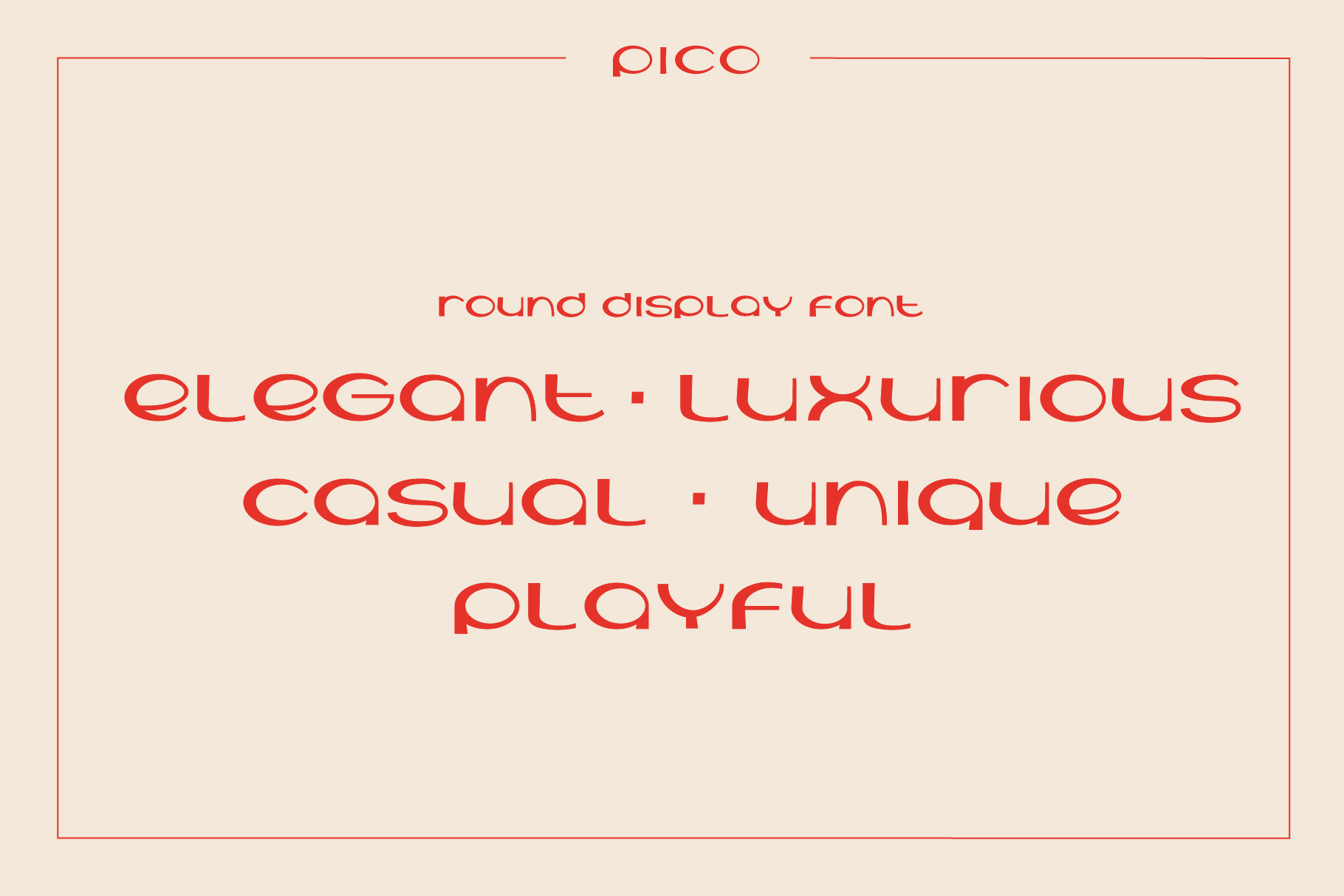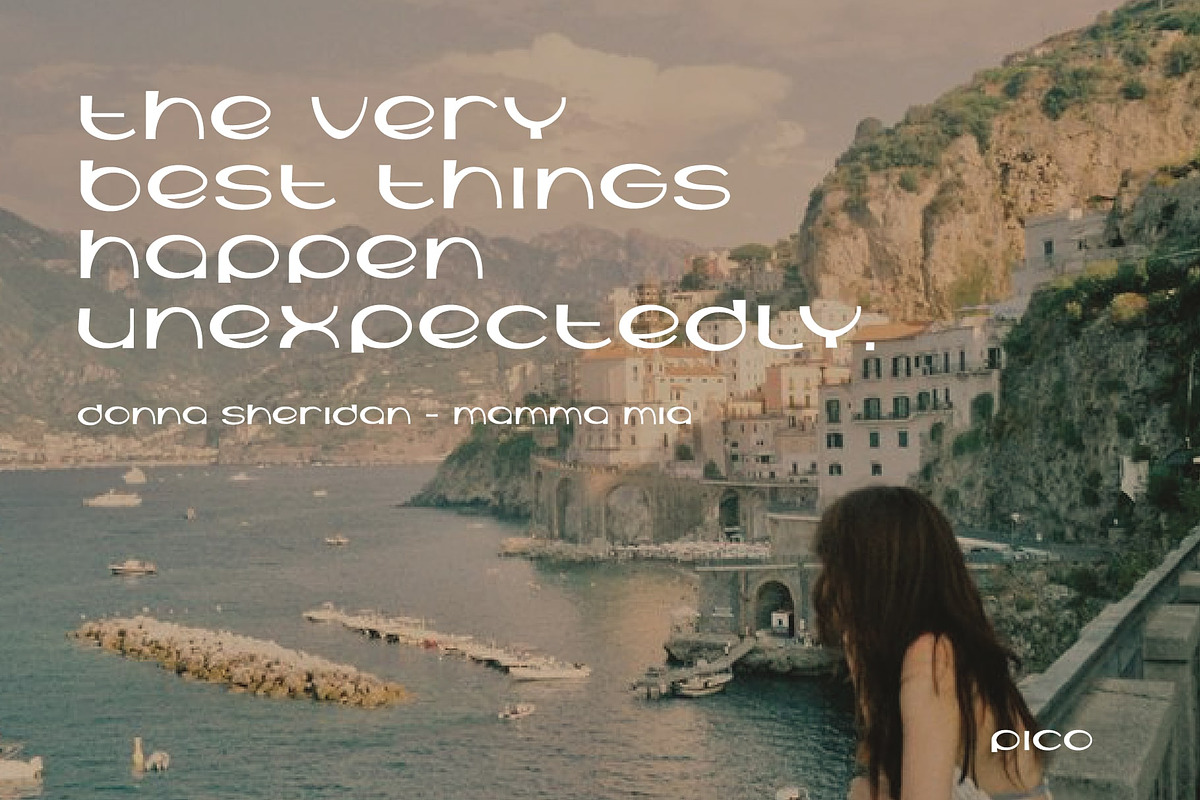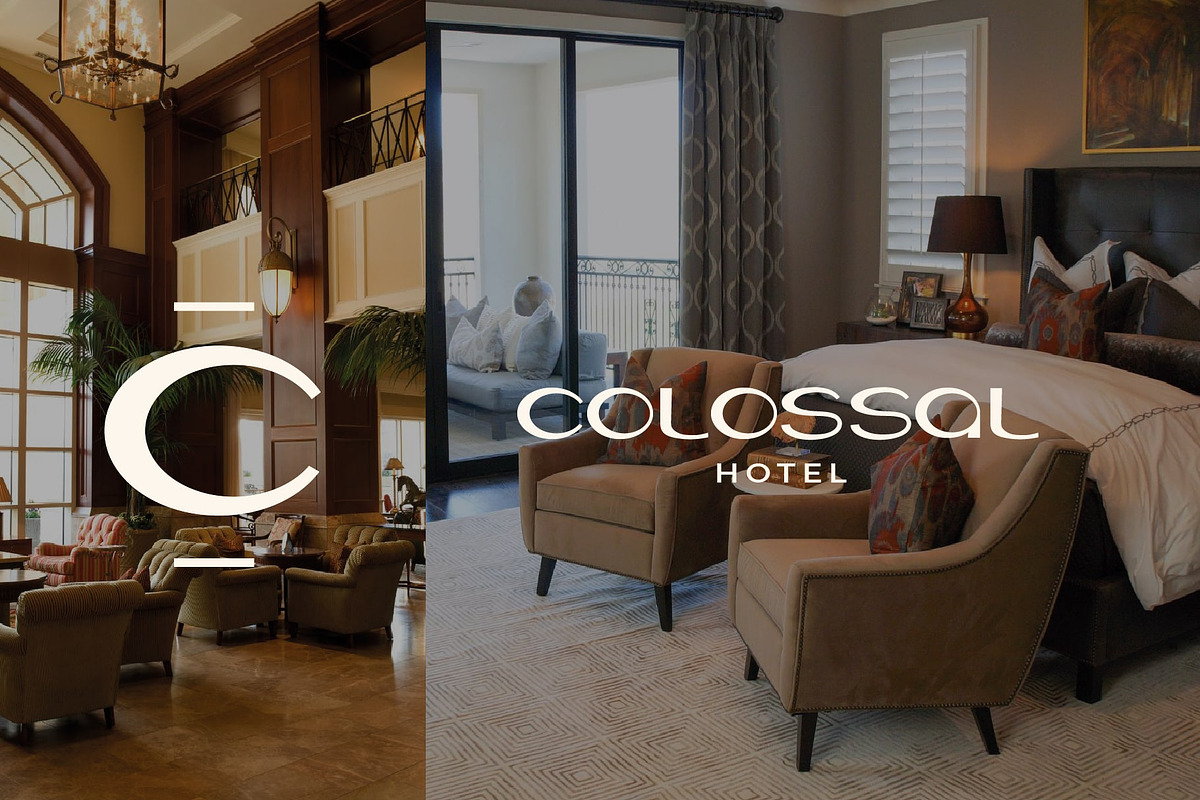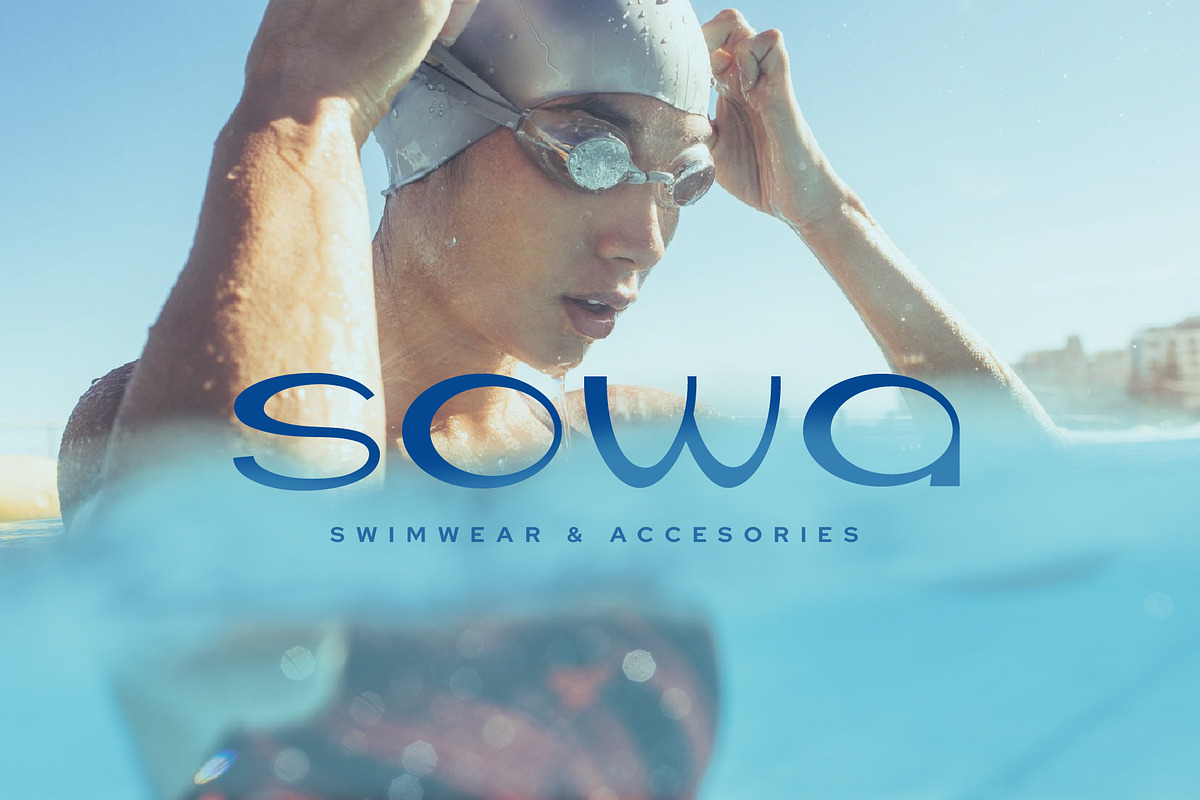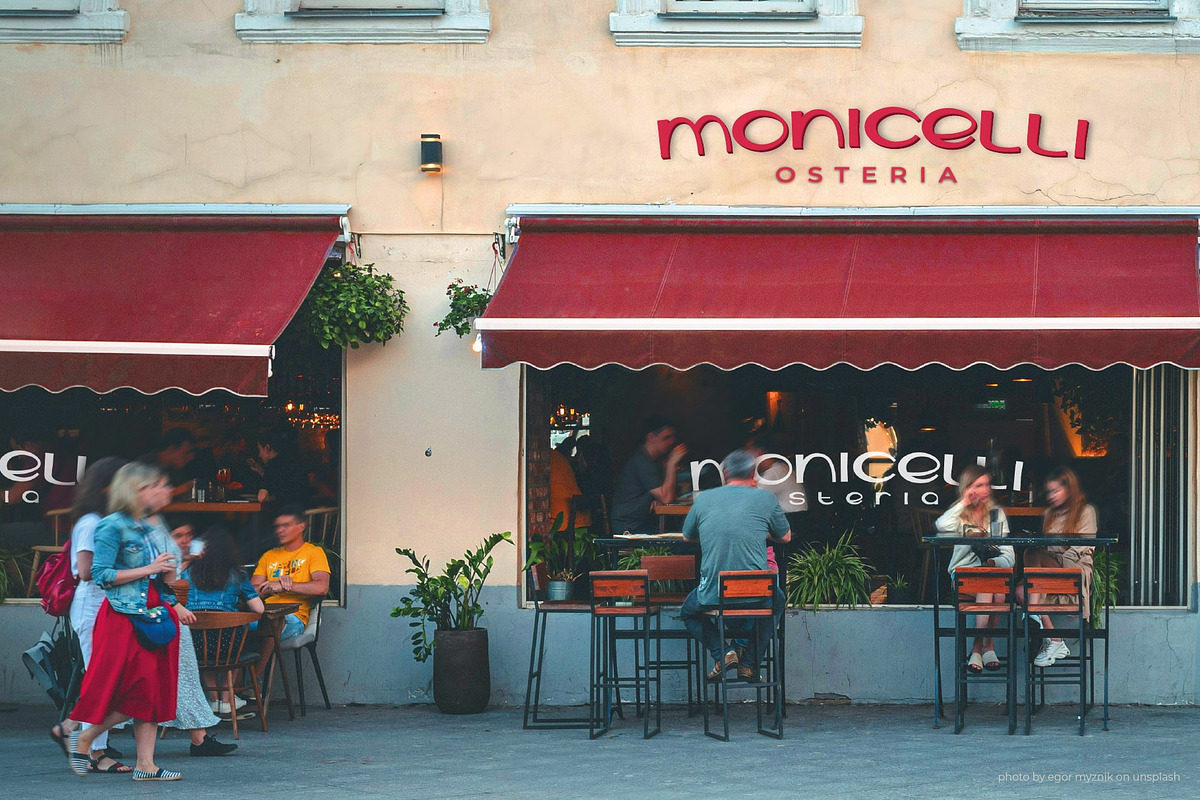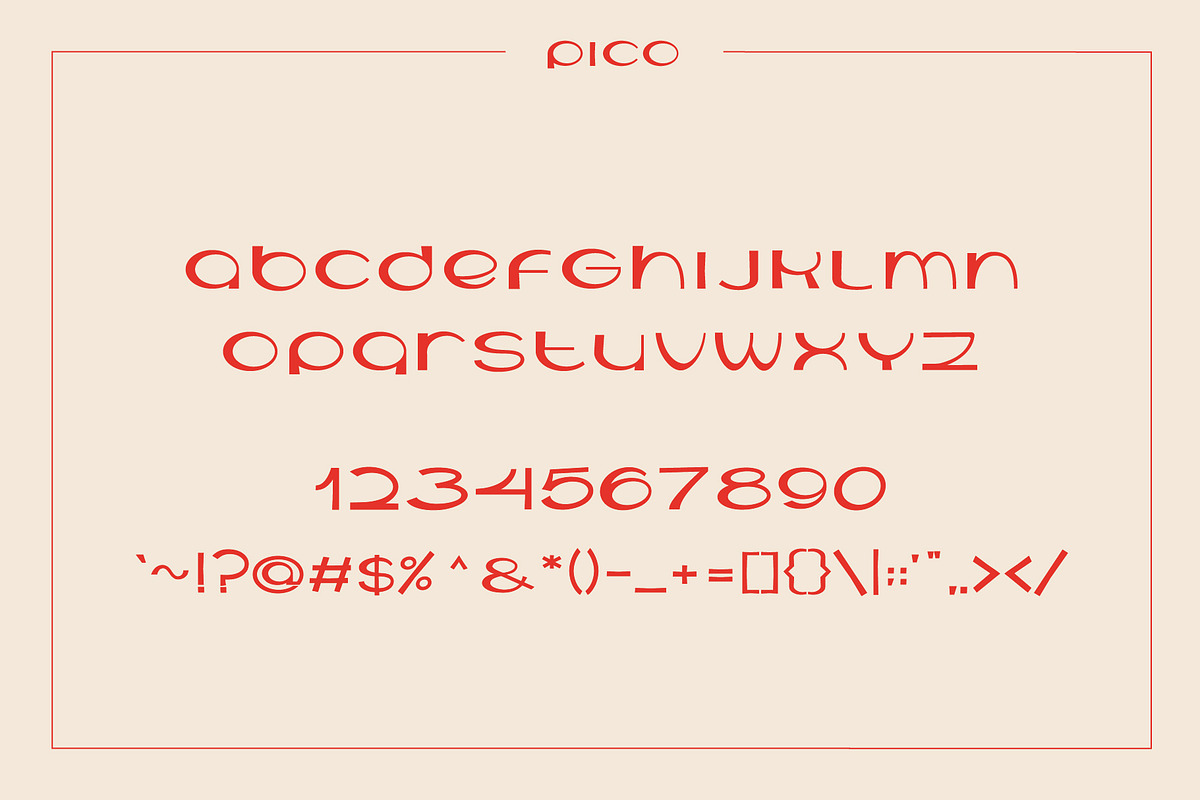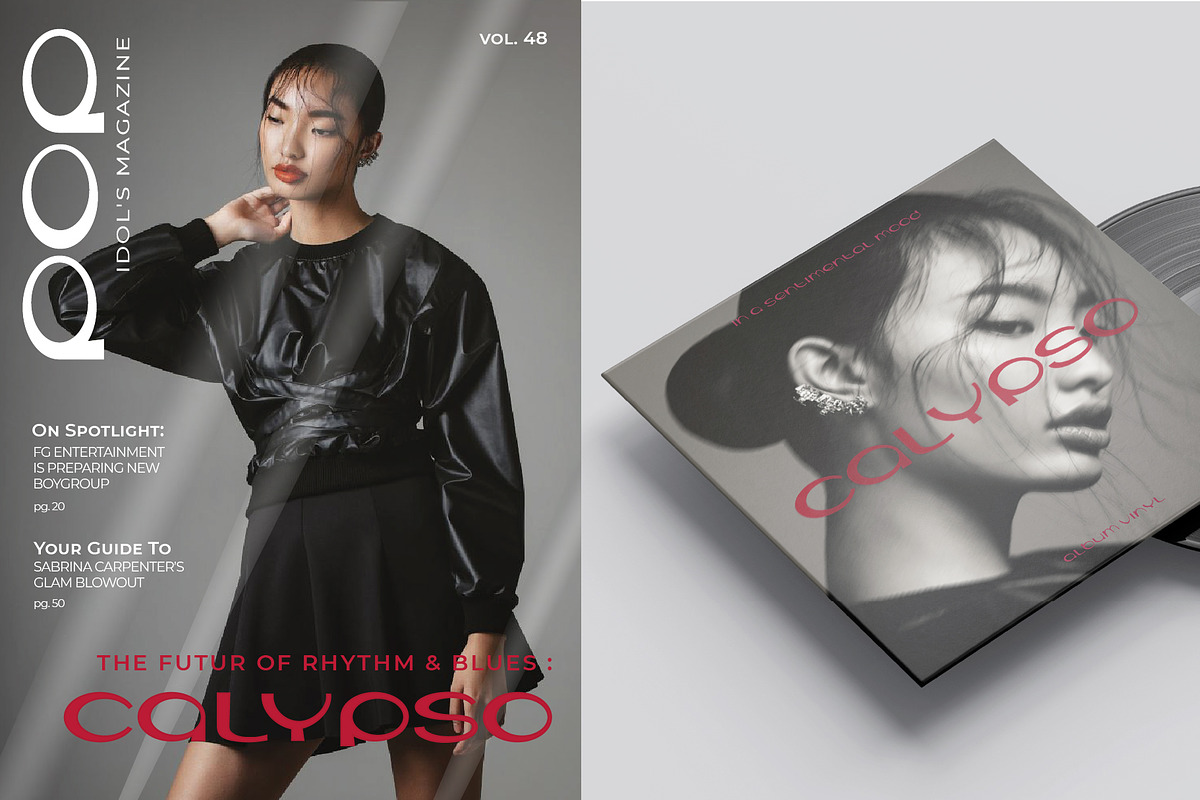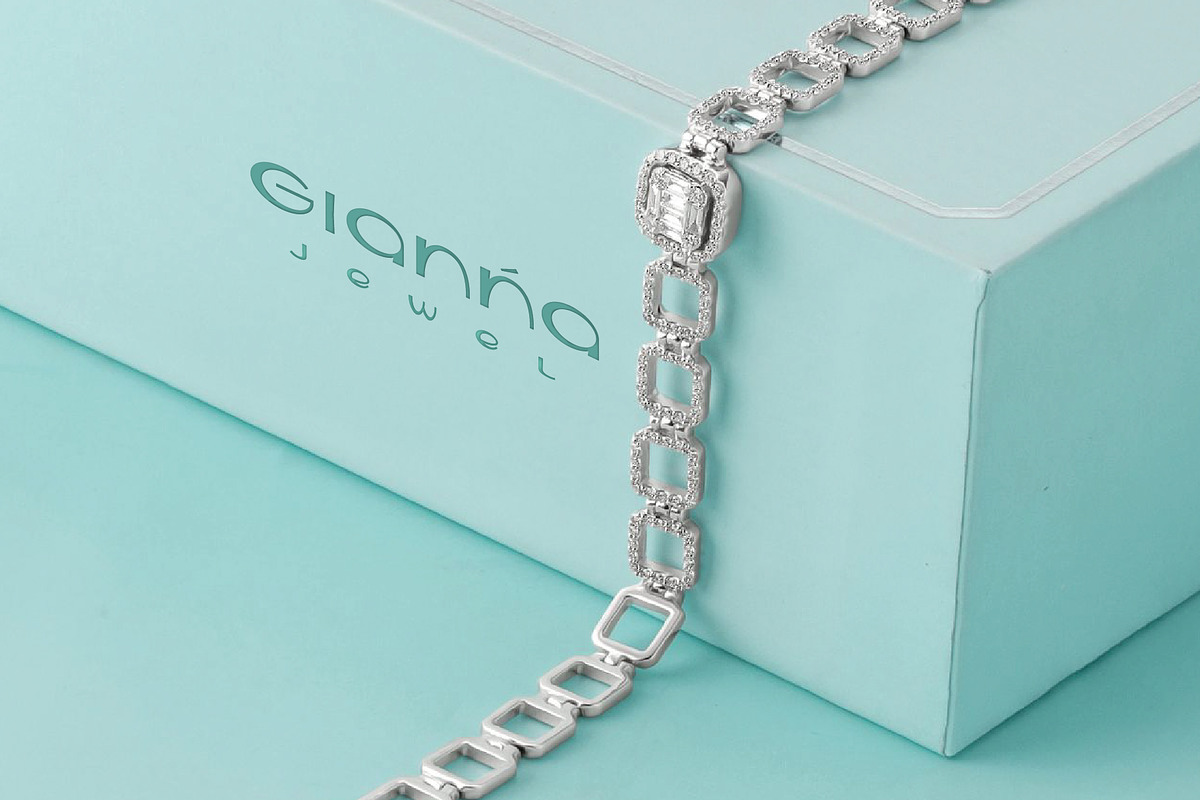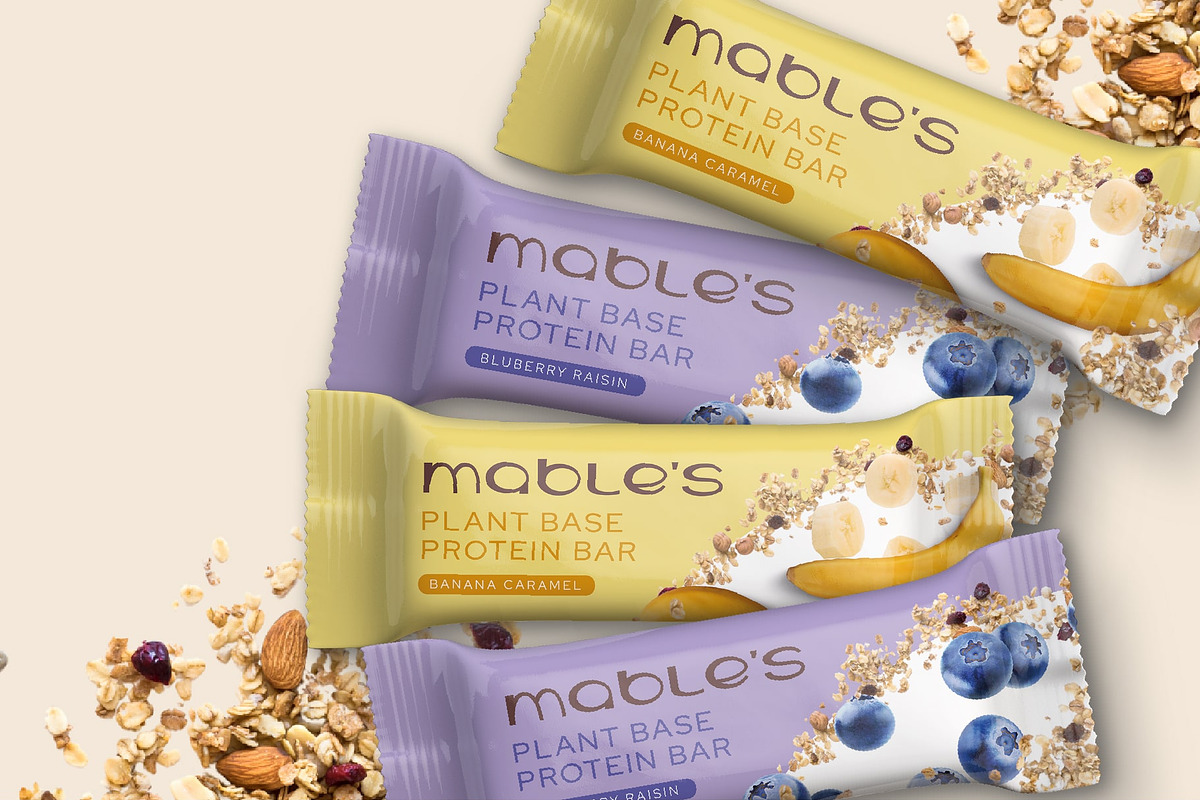
Pico Round Display Font
Pico is a geometric display font rooted in the clarity of modernist design and infused with the relaxed charm of the Mediterranean. Its clean forms give a sense of balance and precision while still feeling lively and expressive. The result is a typeface that is both timeless and versatile, able to shift easily between retro charm and contemporary clarity.
Pico is more than a font, it is a mood. It carries the openness of coastal living, the cinematic flair of classic posters, and the bold confidence of modern design. With its harmony of structure and character, Pico offers a voice that feels equally at home in nostalgic settings and forward-looking projects.
- Fashion & Lifestyle Editorials
- Travel & Café Branding
- Music & Cultural Events
- Social Media Aesthetic Content
- Boutique Signage & Packaging